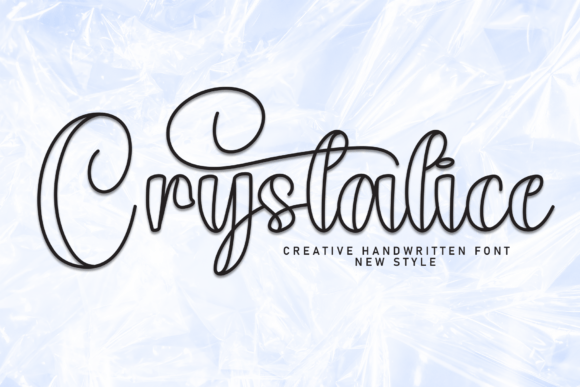
Adding a Touch of Elegance with Crystalice Font
Have you ever found yourself scribbling down a beautiful quote or a heartfelt message, only to realize that it’s the perfect addition to a loved one’s birthday card? That’s exactly the kind of creative moment that inspires designers to seek out the perfect font – and that’s where Crystalice Font comes in.
This stylish and elegant script font is designed to add a handwritten touch to any design, making it perfect for wedding invitations, thank you cards, quotes, and more. Whether you’re a seasoned designer or just starting out, Crystalice Font is a valuable addition to your toolkit, offering a level of sophistication and refinement that’s hard to find in other fonts.
Crystalice Font Key Features
- Unique Characteristics: Elegant, cursive script with crystal-inspired ornaments and flourishes
- Font Pairing: Ideal for pairing with modern sans-serif fonts, such as Open Sans or Lato
Crystalice Font Review
As a designer, I was excited to dive into the Crystalice Font, hoping to find a unique and eye-catching addition to my design toolkit. Here’s my honest review:
- The Crystalice Font has a beautiful, icy aesthetic that’s perfect for winter-themed designs or any project that needs a touch of elegance.
- The font’s intricate details and ornate flourishes add a level of sophistication and visual interest that’s hard to find in other fonts.
- The Crystalice Font is highly customizable, with a wide range of weights and styles to choose from, making it a great choice for designers who like to experiment with different looks.
- The Crystalice Font can be a bit overwhelming when used in large quantities, so be careful not to overdo it.
- The font’s intricate details can make it difficult to read at small sizes, so be sure to test it at different scales before using it in a design.
The Crystalice Font is a stunning addition to any designer’s toolkit, offering a unique and elegant aesthetic that’s perfect for a wide range of projects. While it may have some limitations, the benefits far outweigh the drawbacks. If you’re looking for a font that will help you stand out, the Crystalice Font is definitely worth considering.
Getting the Most Out of Crystalice Font
For optimal results, use the Crystalice font in combination with pastel colors and soft backgrounds to create a visually appealing design. Experiment with different font sizes and styles to add emphasis and hierarchy to your text.
The Crystalice font is ideal for use in feminine designs, such as wedding invitations, baby shower invitations, and women’s magazines. It is also suitable for use in branding and packaging design for beauty and wellness products.
Alternatives to Crystalice Font